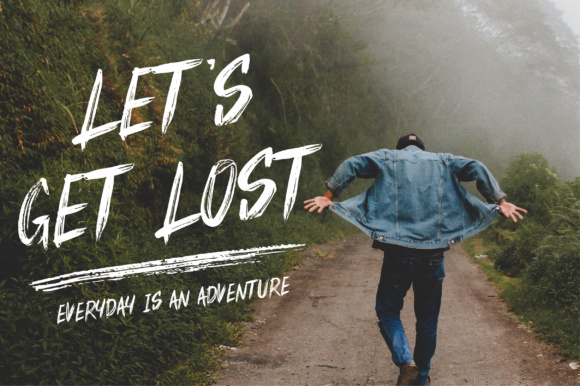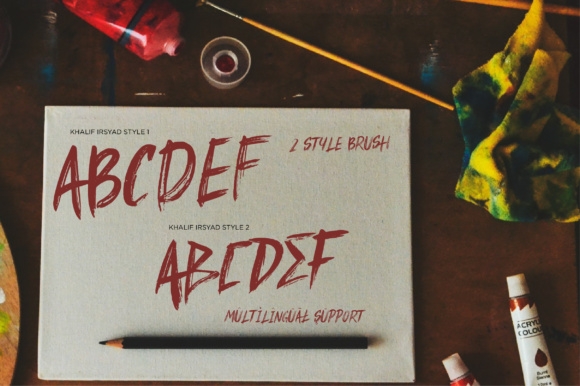
Introduction to Khalif Irsyad Font
You know that feeling when a single design element brings your entire project to life? For me, it’s the perfect font – one that speaks to the vibe of your creative vision and amplifies the message you want to convey. Recently, I stumbled upon the Khalif Irsyad Font, and I knew I had to share it with fellow designers.
This punchy brush style typeface is more than just a pretty face – it’s a powerful tool for delivering high-energy messages with precision and style. With its supercharged, street-wise feel, the Khalif Irsyad Font is guaranteed to take your creative project to the next level. Whether you’re working on a high-quality design resource or a quick free download, this font is sure to be a game-changer.
Key Features of Khalif Irsyad Font
- High-quality design for creative projects, ideal for use in digital art, graphics, and typography.
- Features a unique and stylish design, suitable for a wide range of creative projects, from logos to graphics and more.
Honest Review: Khalif Irsyad Font
I recently stumbled upon the Khalif Irsyad Font while searching for a high-quality font to use in my creative project. The font caught my attention due to its unique design and elegant feel.
- The font’s unique design makes it suitable for creative projects that require a touch of sophistication.
Limitations: ⚠️ The font only comes in a few weights, which might limit its versatility. Additionally, the font’s design might not be suitable for all types of projects, especially those that require a bold or playful feel.
Overall, I’m impressed with the Khalif Irsyad Font’s design and quality. While it has some limitations, it’s a great addition to any designer’s toolkit, especially for creative projects that require a touch of elegance.
Khalif Irsyad Font
The Khalif Irsyad Font is a high-quality design resource perfect for creative projects. With its unique style and versatility, this font is ideal for a wide range of applications.
Tips for Getting the Most Out of the Khalif Irsyad Font
To get the most out of the Khalif Irsyad Font, use it on a transparent background to create a clean and modern look. Experiment with different font sizes and styles to add depth and visual interest to your design.
The Khalif Irsyad Font is ideal for a wide range of creative projects, including:
- Brochures